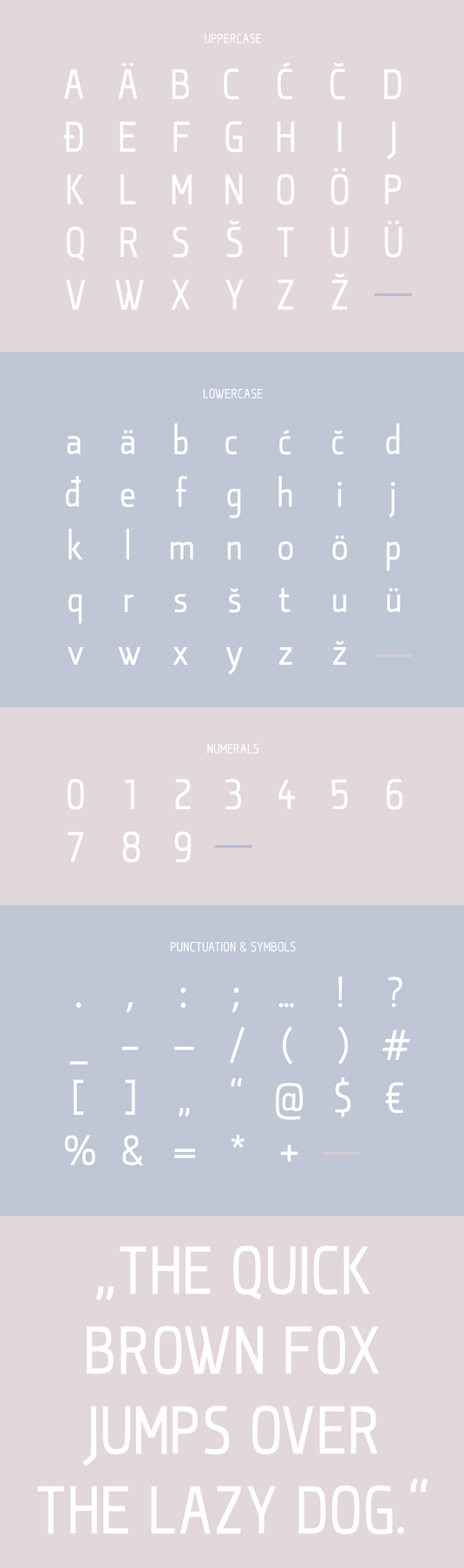
Font of the day: Qontra
Qontra by Tomaz Hrastar
Designer Tomaz Hrastar is the man behind today's typeface Qontra. A condensed, sans serif, Hrastar comments the design is "best suited to headlines, magazine and newspaper designs".